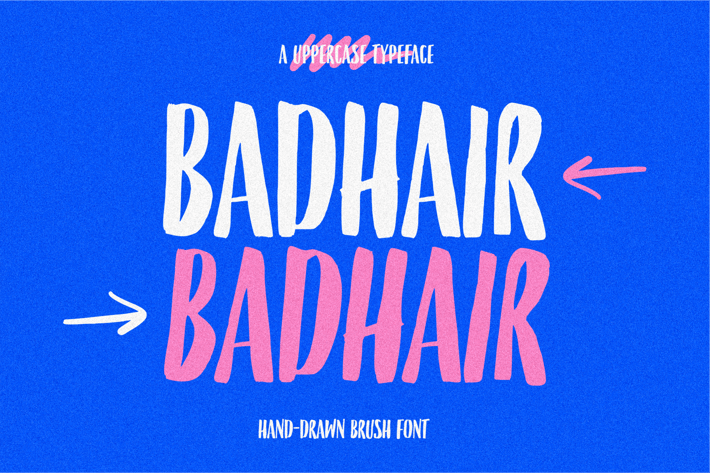
BADHAIR FONT
A font style derived from the author's original handwriting style with uppercase characters, perfect for social media posts, posters, quotes, and other designs.
All Uppercase character
Punctuation & Symbol